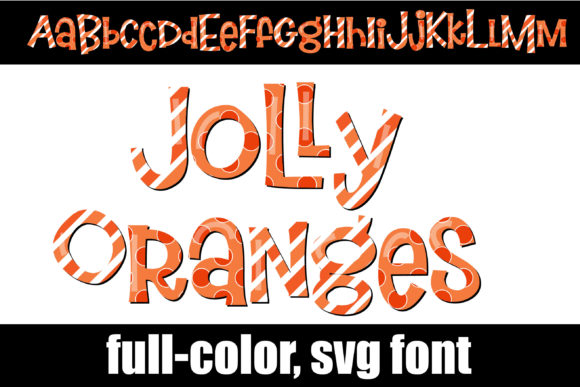
Introducing Jolly Oranges Font: The Ultimate Color Explosion for Your Creative Projects
Prepare to be amazed by Jolly Oranges Font, a vibrant and captivating creation from Illustration Ink. This full-color font is a burst of creative energy, featuring whimsical lettering in a delightful orange color palette. Let your imagination soar as you design stunning projects that exude joy and vibrancy.
With Jolly Oranges Font, you'll capture the hearts and imaginations of your audience. Its unique and playful ligatures, like the double l's, add a touch of creativity and visual intrigue to your designs. Unleash your inner designer and let your projects shine with the extraordinary charm of Jolly Oranges Font.
But that's not all! Jolly Oranges Font comes with a hidden treasure – a second upper and lower alternate case. Access it through your system's character map and unlock even more possibilities for customization. Let your ideas take center stage and watch as your projects blossom into masterpieces.